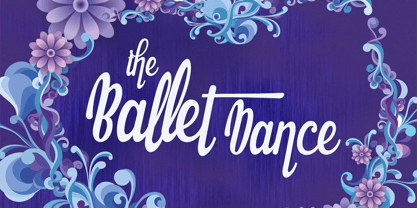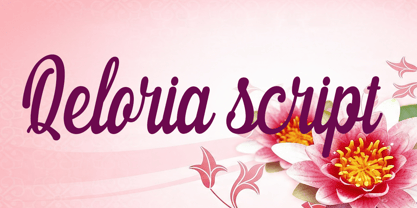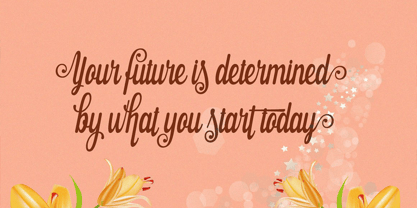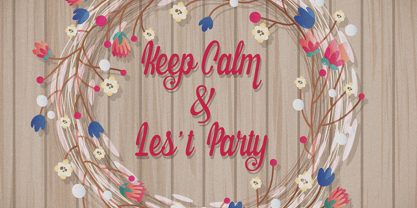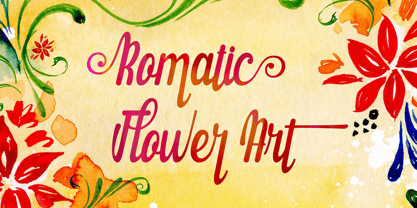
Qeloria Script
Die Schriftfamilie Qeloria Script wurde von Sai Poel entworfen und von Groen Studio veröffentlicht. Qeloria Script enthält 1 Stile. Mehr über diese Familie
Qeloria Script – Calligraphy Script Font
Qeloria Script is a beautiful calligraphy script font that captures the elegance of handwritten artistry with a modern and sophisticated touch. Featuring flowing strokes, graceful swashes, and naturally connected letterforms, Qeloria Script brings a sense of romance, charm, and luxury to any design project.
Carefully crafted to achieve a smooth and authentic handwritten appearance, Qeloria Script is perfect for wedding stationery, luxury branding, feminine logos, product packaging, social media content, and elegant editorial designs. Its delicate curves and stylish character create a timeless aesthetic that feels both classic and contemporary.
Whether you're designing a wedding invitation, creating a memorable brand identity, or adding a personal signature touch to your work, Qeloria Script delivers elegance in every stroke.
Features
• Elegant calligraphy script style
• Beautiful beginning and ending swashes
• Smooth handwritten flow
• Uppercase and lowercase letters
• Numbers and punctuation